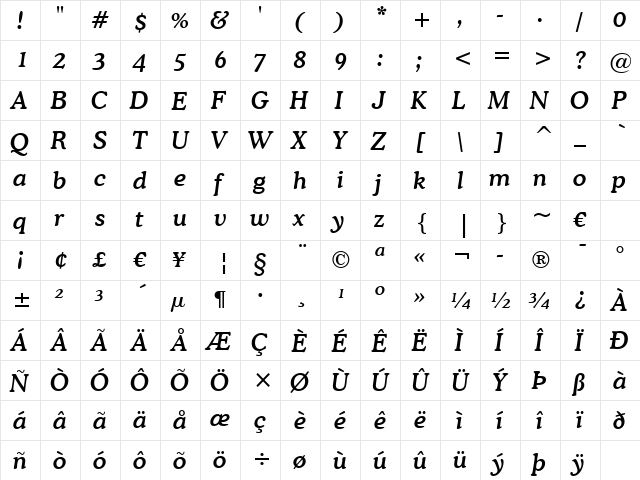
Cooper Md BT Medium Italic
Design Context for Cooper Md BT Typeface
Cooper Md BT takes a measured approach to typography — its balanced proportions and neutral character make it a reliable workhorse for both digital and print work. Its italic angle brings a sense of urgency and motion to the letterforms.
Pro Tip: Use Cooper Md BT for emphasis, pull quotes, and subheadings where its slanted energy can add rhythm to the layout.